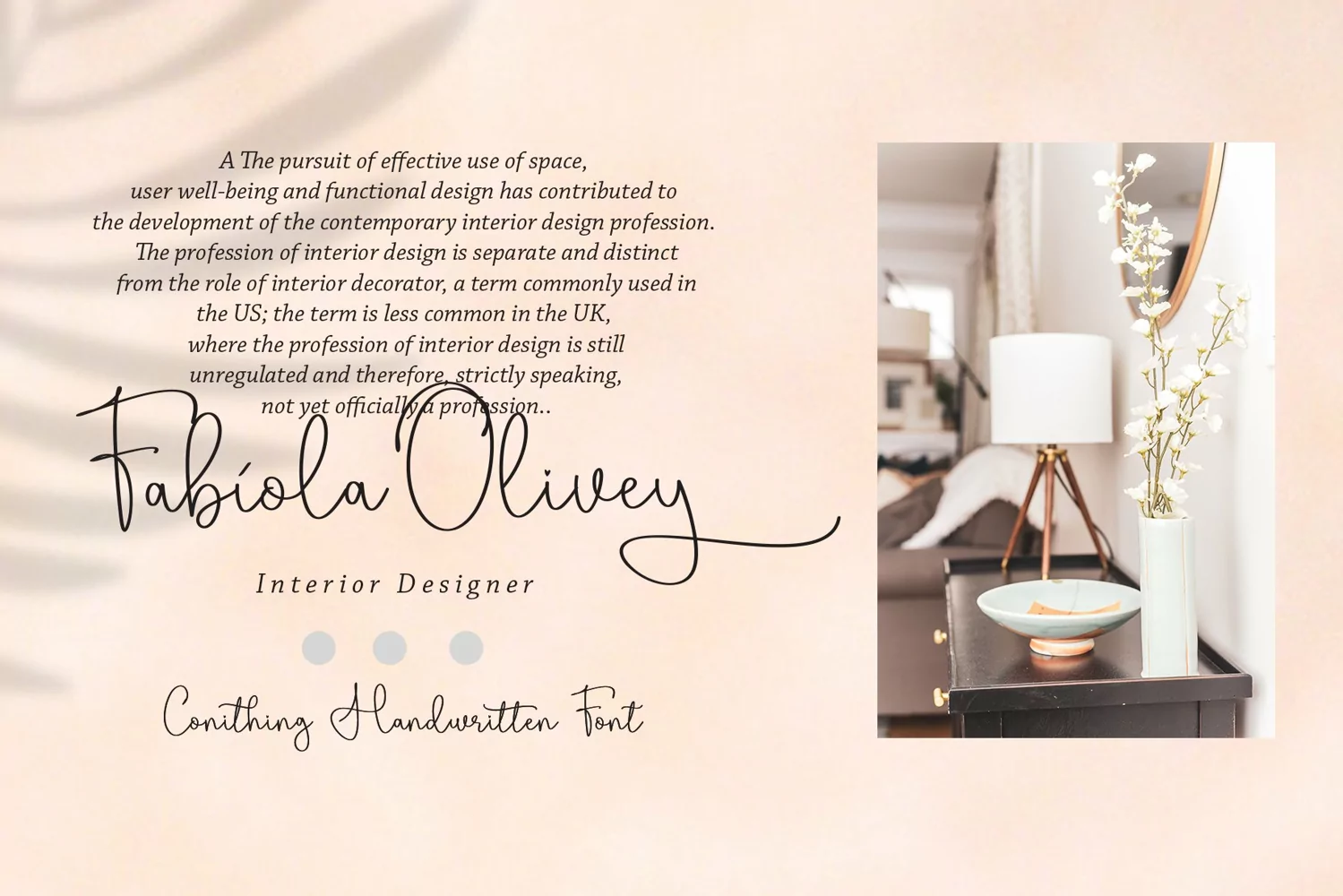
Conithing
Conithing a very classy and light style handwritten font, with lots of characters in it, also complete with connectable hearts to make it more beautiful.
Conithing font is modern, simple, but still authentic. You will get full set of lowercase and uppercase letters, numerals and punctuation, multilingual symbols, lowercase beginning and ending swashes, ligatures.